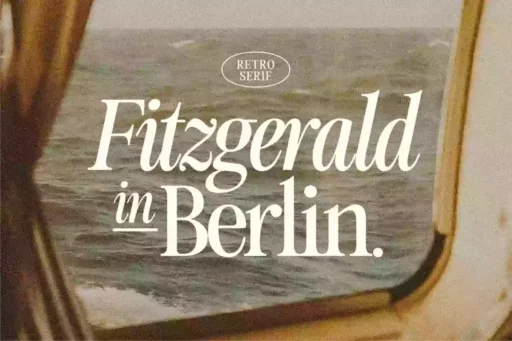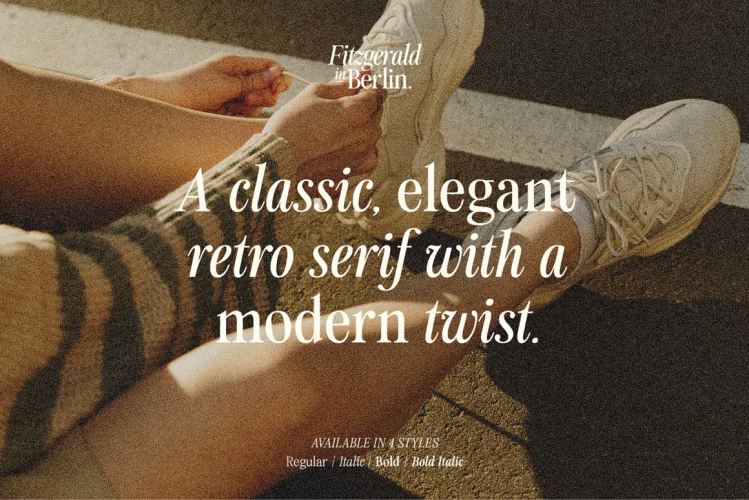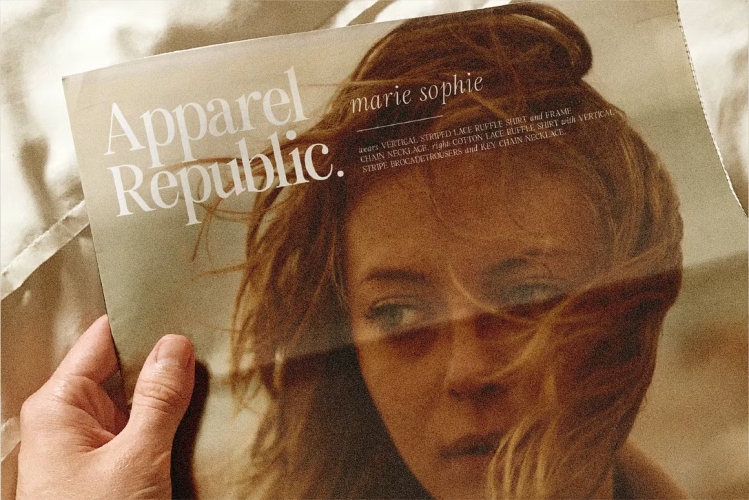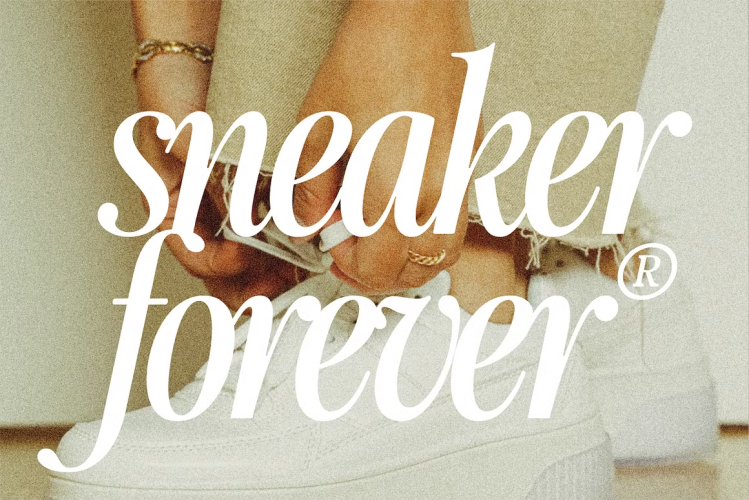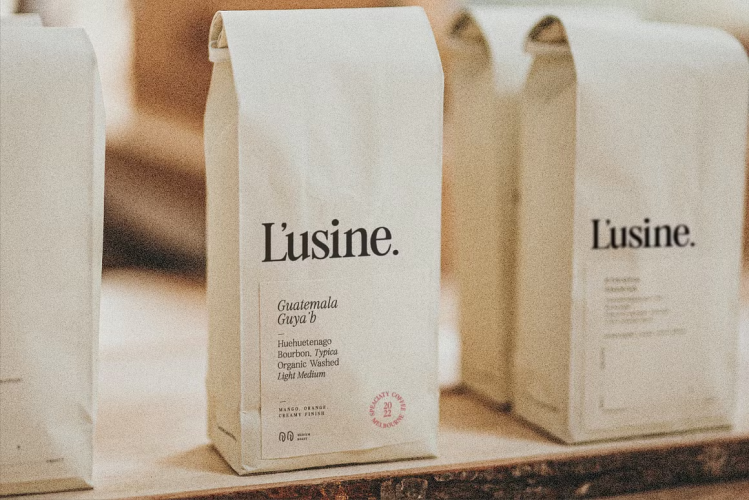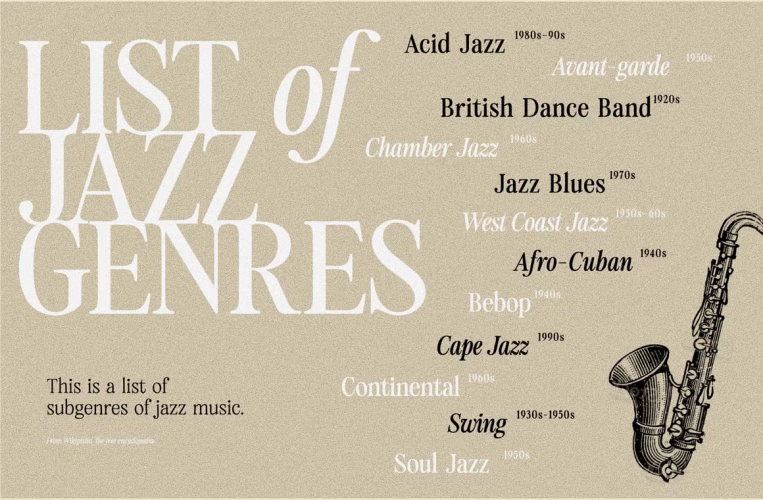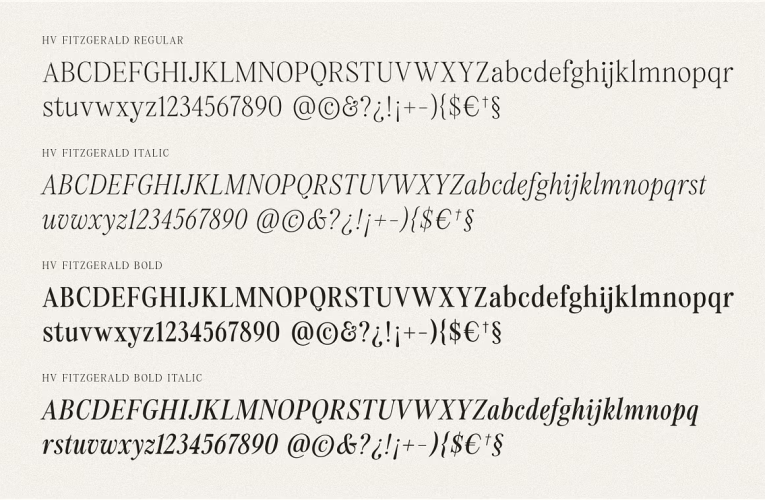
Fitzgerald Font
Fitzgerald is a clean and stylish serif font that has a retro feel to it while maintaining a modern aesthetic. The font is very simple and ideal to use for a wide variety of purposes, ranging from display headings to text copy. Created by Harmonais Visual and Inspired by the trend of nostalgia, Fitzgerald embodies the characteristics of the typography from the early 1900s with the principles of contemporary design. This blend is perfect for coming up with designs that have retro feelings while still maintaining a clean and classy look.
Fitzgerald is a retro serif font that has the ability to create a timeless look while still being suitable for contemporary designs. Furthermore, Some of the characteristics of Fitzgerald include the fact that it has serifs that are bold, and more so, they make the text more legible and give it a classical touch. Moreover, The font design is inspired by the retro style which is becoming popular once again, combining the vintage style with the modern style to create a clean and beautiful font. This makes it possible for Fitzgerald to be fashionable and timely, even in the current generation.
Due to its high legibility, it is suitable for use in display text like headlines and posters as well as for body text in editorial design, which includes magazines, newspapers and books. Furthermore, Fitzgerald’s elegance is ideal for advertising, including logos and packaging, where it can lend a classy touch and be easily noticeable on the shelves. From recreating old designs to incorporating a touch of vintage into modern designs, Fitzgerald’s timeless yet modern look is perfect for designers.
Fitzgerald Font is a Serif Fonts font that brings a professional and versatile look to your projects. Fitzgerald is a clean and stylish serif font that has a retro feel to it while maintaining a modern aesthetic.